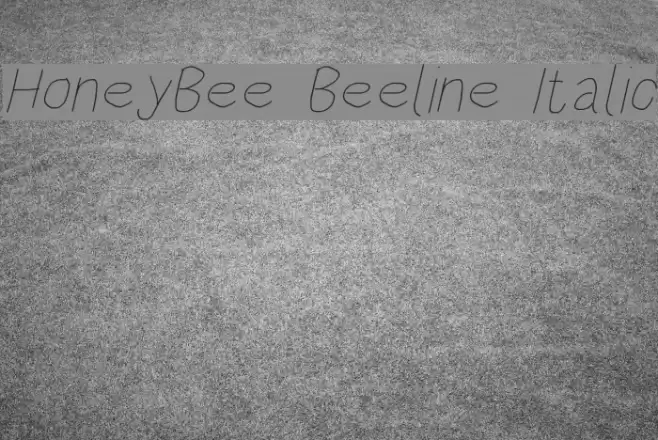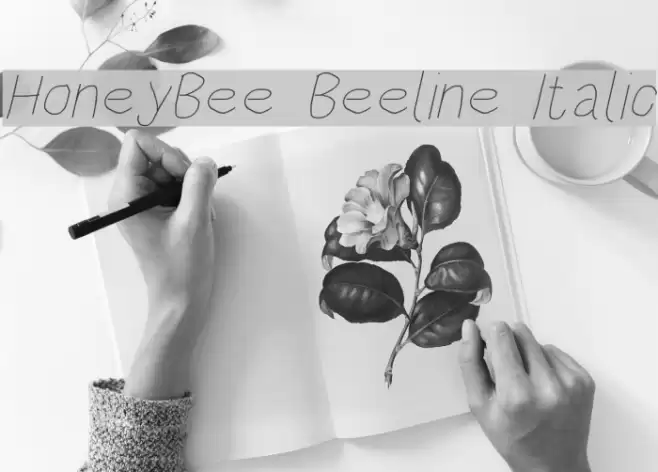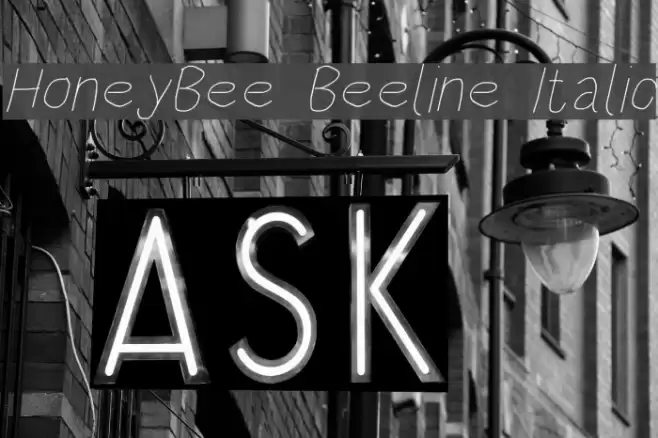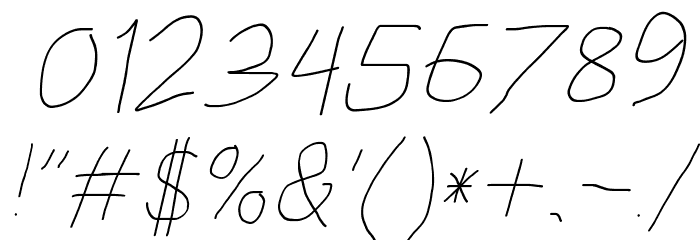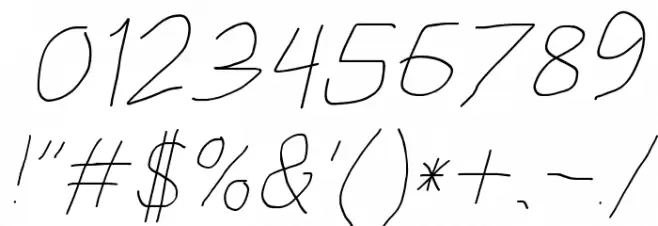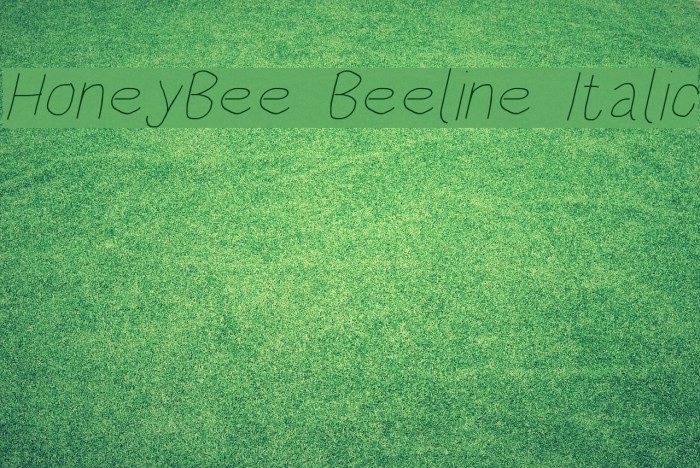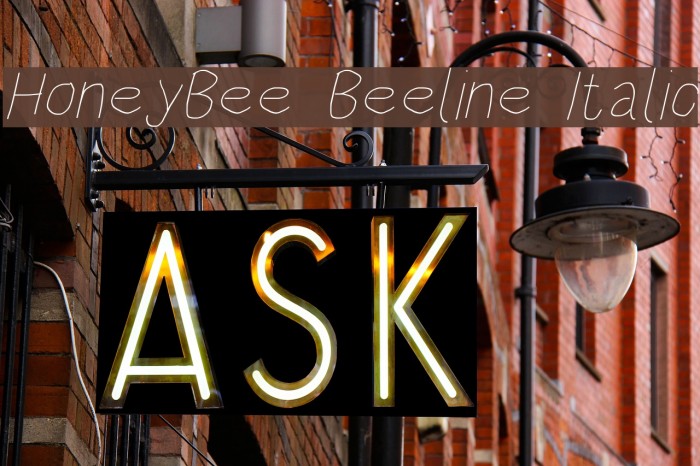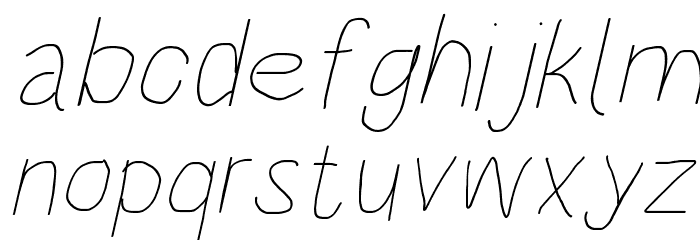
HoneyBee Beeline Italic
This font features a playful and informal handwritten style, characterized by its smooth, flowing lines and slight slant, giving it an italic appearance. The strokes are consistent in width, creating a uniform look across all characters. Uppercase letters maintain a balance between elegance and readability, while lowercase letters exhibit a casual, friendly demeanor. The numerals are clear and distinct, ensuring legibility. Special characters are designed with the same fluidity, making them blend seamlessly with the rest of the font. This font exudes a sense of warmth and approachability, ideal for projects that require a personal touch.
A playful, handwritten italic font with smooth, flowing lines.
- Proposed Projects: Ideal for greeting cards, personal branding, invitations, and casual blog headers.
- Overall Style: Casual
- Use Case: Headlines, Logos, Invitations